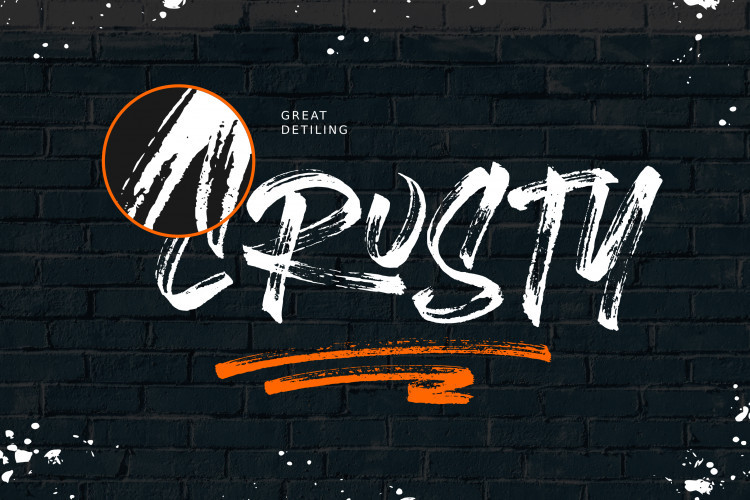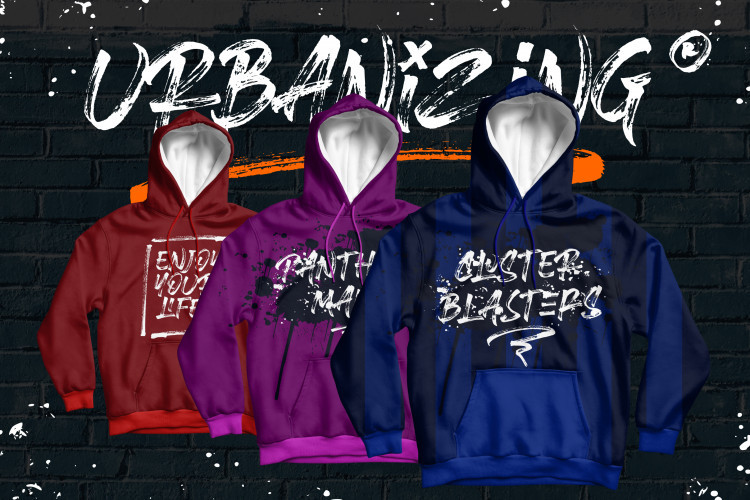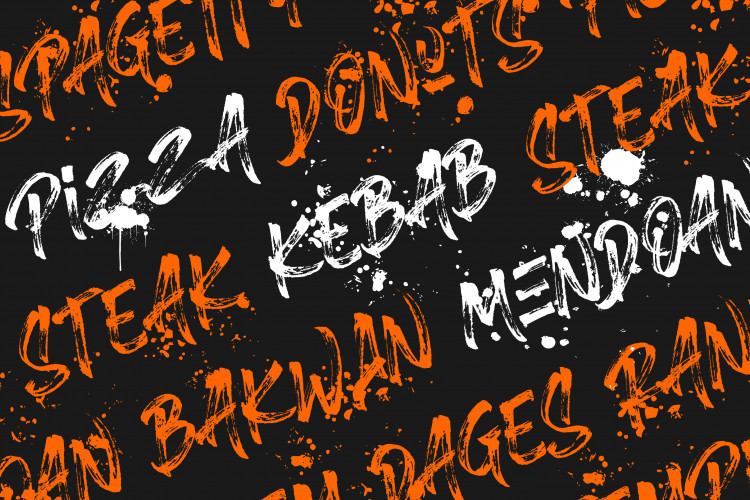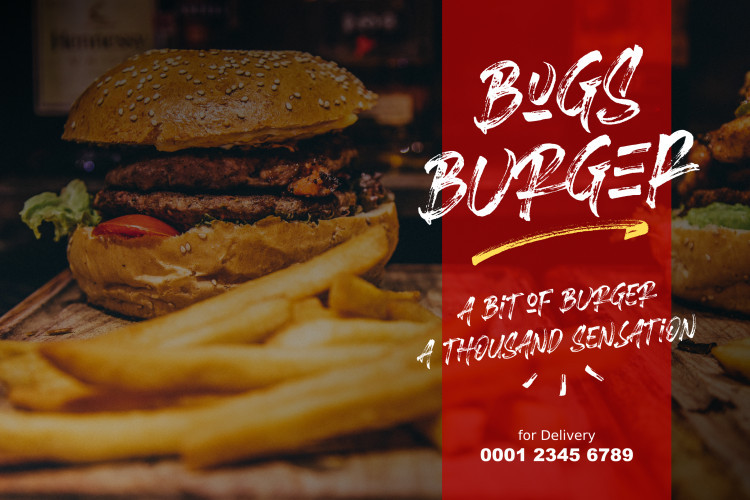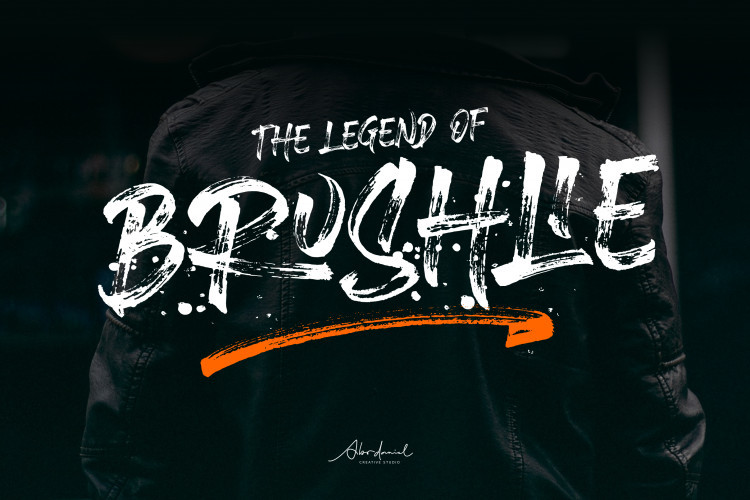
Brushlie Brush Font
A new wild brush font by Abo Daniel Studio. This is textured brush font, contemporary approach to design, handmade natural with an irregular baseline. Presenting Brushlie Font. This font is made with real brush. Brushlie is ideal for logos, apparel, quotes, product packaging, or anything which needs a typographic with natural brush taste.